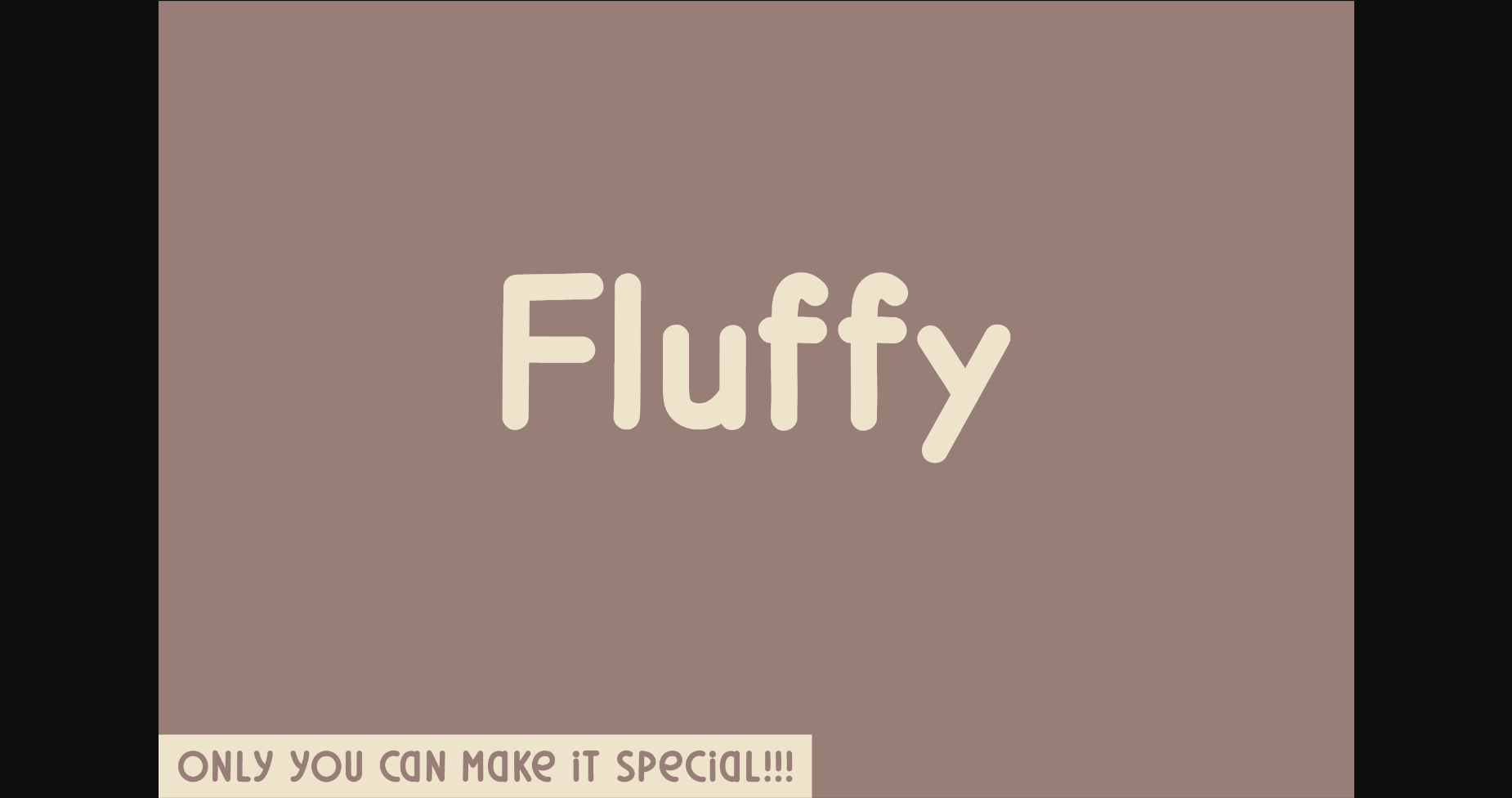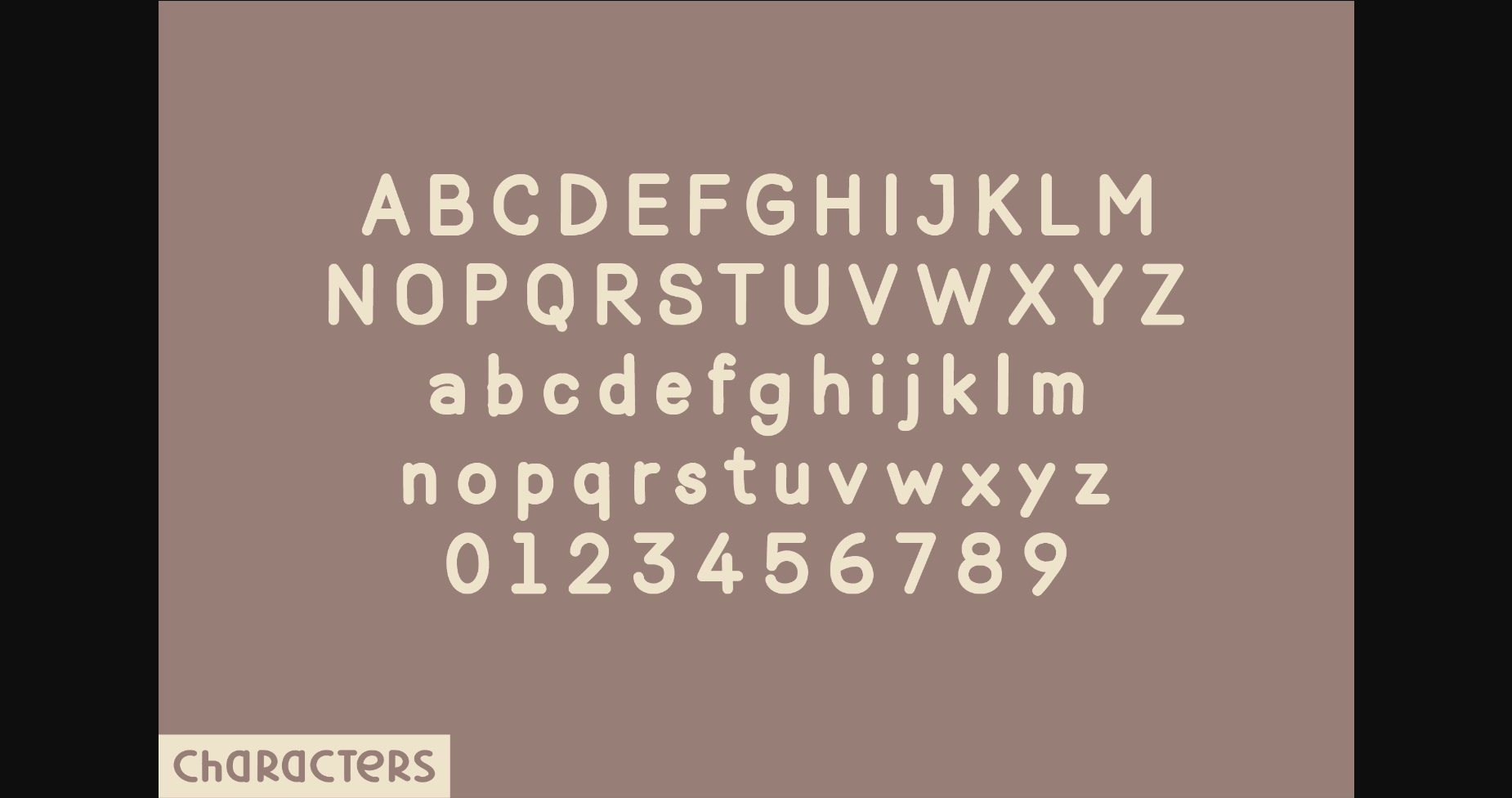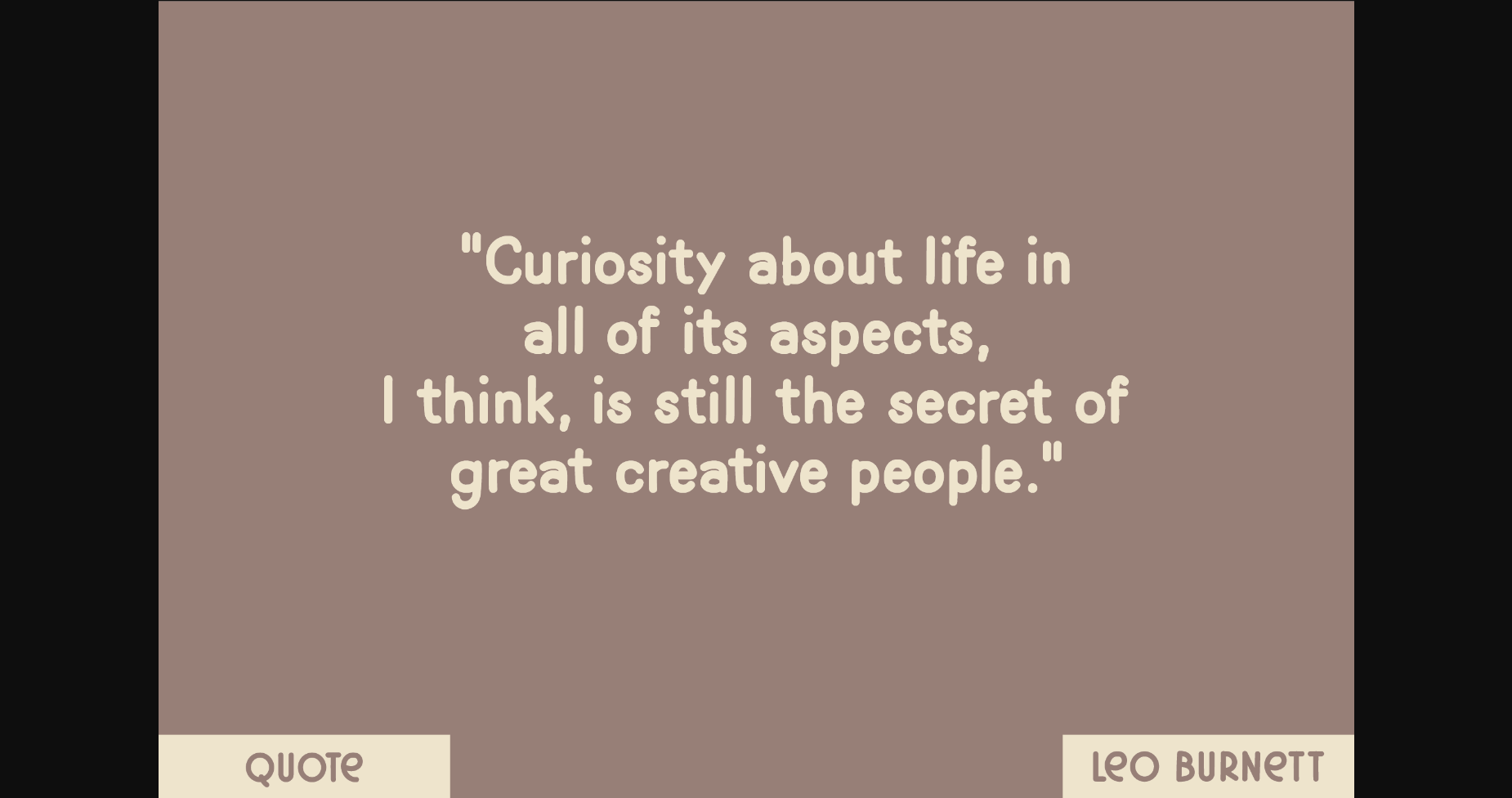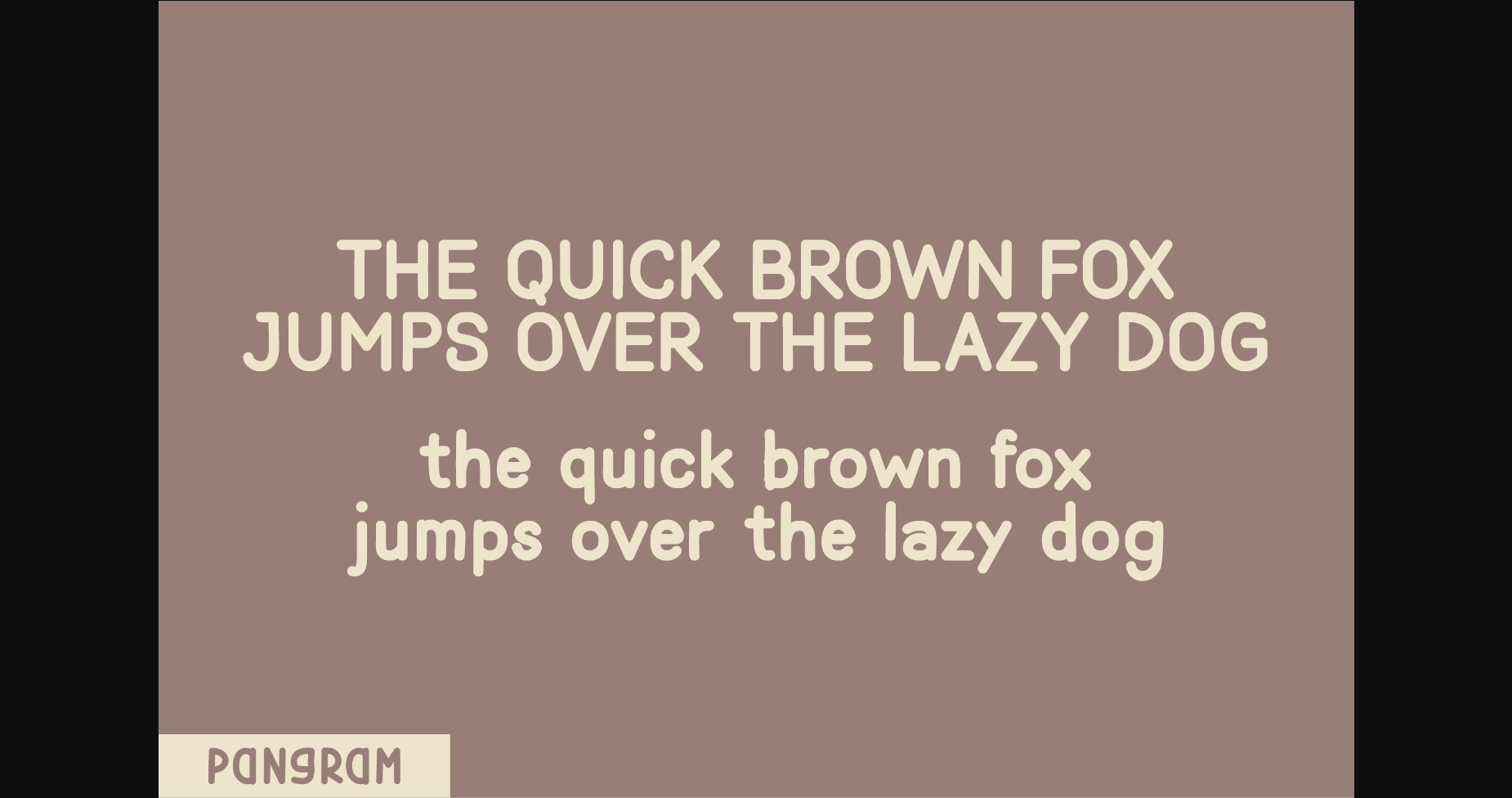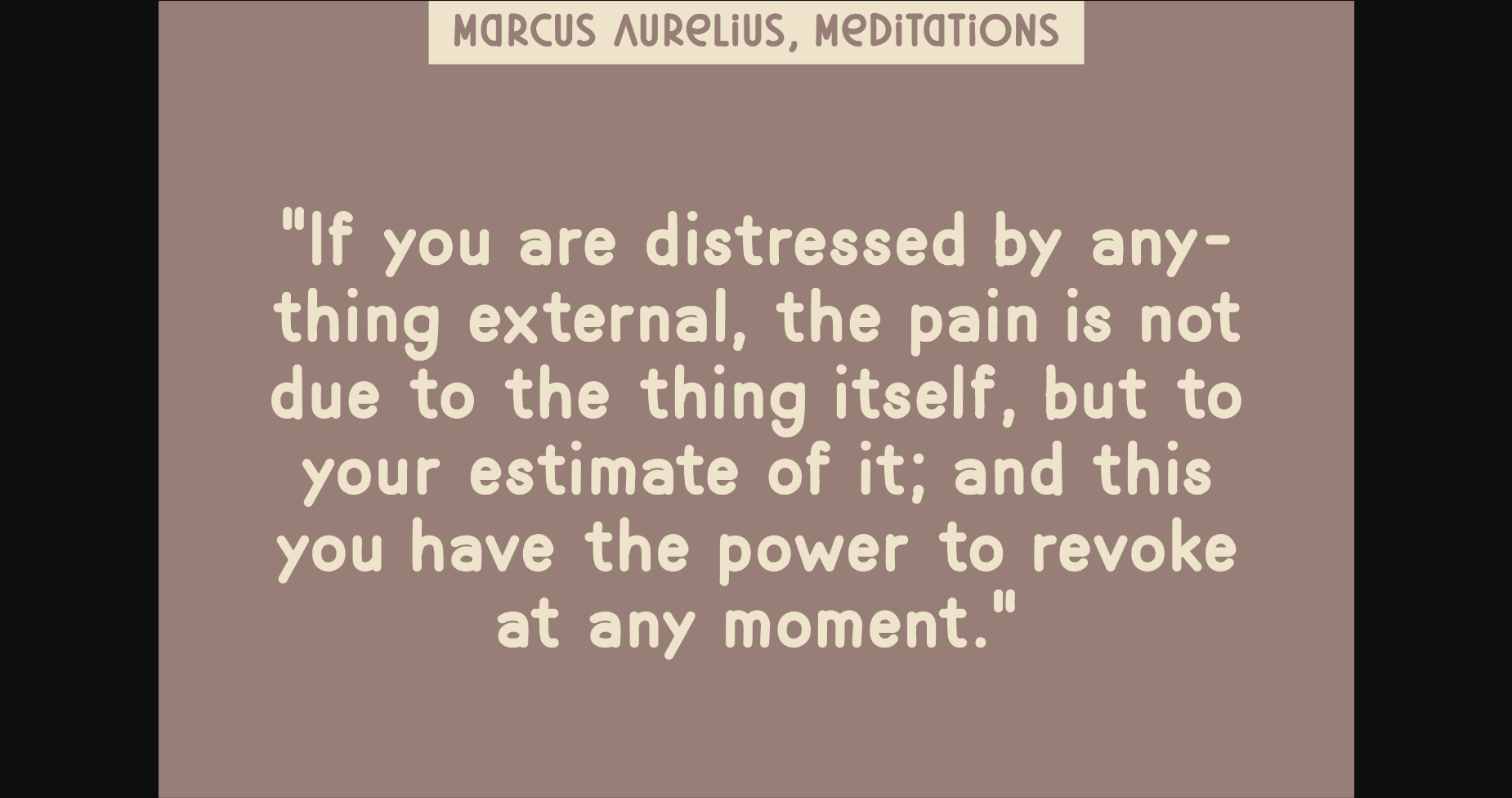
HomeSans Serif FontsFluffy Font Sans Serif Fonts Fluffy Font FacebookXPinterestWhatsApp 1 of 7 ... Fluffy Font Poster 2... Fluffy Font Poster 3... Fluffy Font Poster 4... Fluffy Font Poster 5... Fluffy Font Poster 6... Fluffy Font Poster 7... About Fluffy Font Fluffy is a natural sans serif font, perfect for quotes, notes, tees, and any product design that needs a classic touch! DOWNLOAD NOW People also explored Holla Santa Font Mandalena Font My Dream Font Monster Spider Font Mariken Sammalado Font Ever Font Believe Morning Font Ariana Font 300 0 TagsFluffyFluffy Font Previous articleHappy Go Lucky FontNext articleDainty Doodles Font LEAVE A REPLY Cancel reply Comment: Please enter your comment! Name:* Please enter your name here Email:* You have entered an incorrect email address! Please enter your email address here Website: Save my name, email, and website in this browser for the next time I comment. Personal Use Free Valentines Day Personal Use Free Read more about this font Bellarin Personal Use Free Read more about this font Setta Personal Use Free Read more about this font Miracles Personal Use Free Read more about this font BLOG Elegant Wedding Invitation Fonts – Handwritten & Script Fonts Elegant Wedding Invitation Fonts Your wedding day is one of the most important moments of your life, and every detail matters—including your invitation design. Our... The 10 Best Handwriting Fonts to Add Personality to Your Designs To increase your work productivity, choose the most readable fonts. Best Fonts for YouTube Videos: Make Your Thumbnails Stand Out